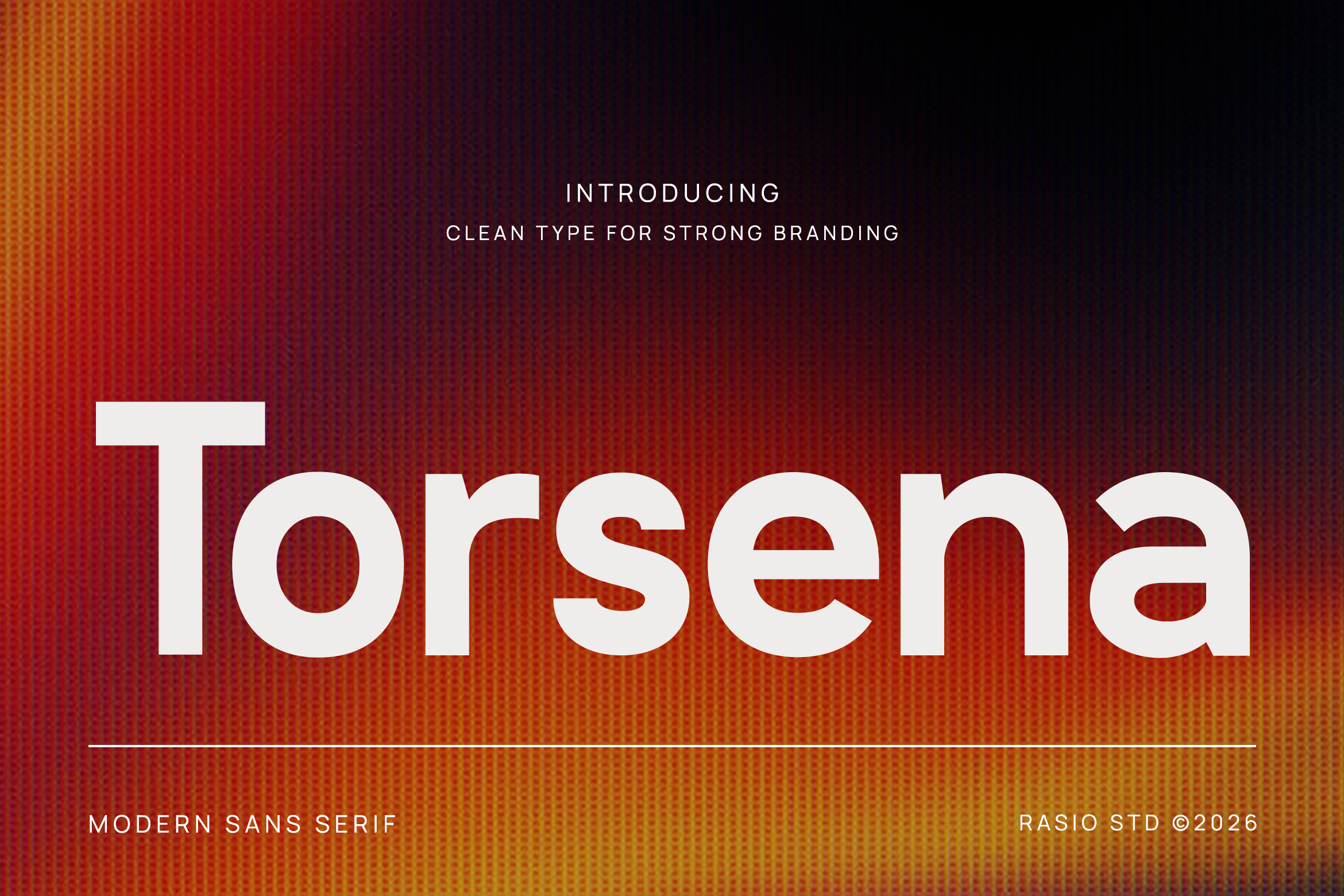
Torsena Modern Sans Serif Font
Torsena is a modern sans serif typeface built with clean geometry, balanced proportions, and a bold contemporary presence. It includes uppercase, lowercase, numerals, punctuation, and multilingual support, making it highly functional for diverse design needs. The design blends minimal structure with strong visual impact, delivering clarity across both display and text applications.
This typeface aligns with modern visual trends, making it relevant for branding, digital interfaces, editorial layouts, and marketing materials that demand clarity and strong presence. It works effectively for technology brands, startups, corporate identities, and creative industries where a clean and futuristic tone enhances communication.
- Clean modern sans serif structure with strong geometric influence
- Balanced proportions with wide apertures for clear readability
- Uniform stroke weight creating a solid and stable visual tone
- Minimal contrast with smooth curves and precise edges
- Contemporary spacing optimized for both large headlines and body text
- Brand identity systems that require a bold, modern, and clean visual presence
- UI/UX design templates for tech products, apps, and digital platforms
- Editorial layouts, presentations, and corporate publications with strong hierarchy
- Product packaging and labels focused on minimal and contemporary aesthetics
- Social media templates and marketing visuals with high contrast and modern appeal
Power your visuals with clean strength, Torsena for a sharp modern impact